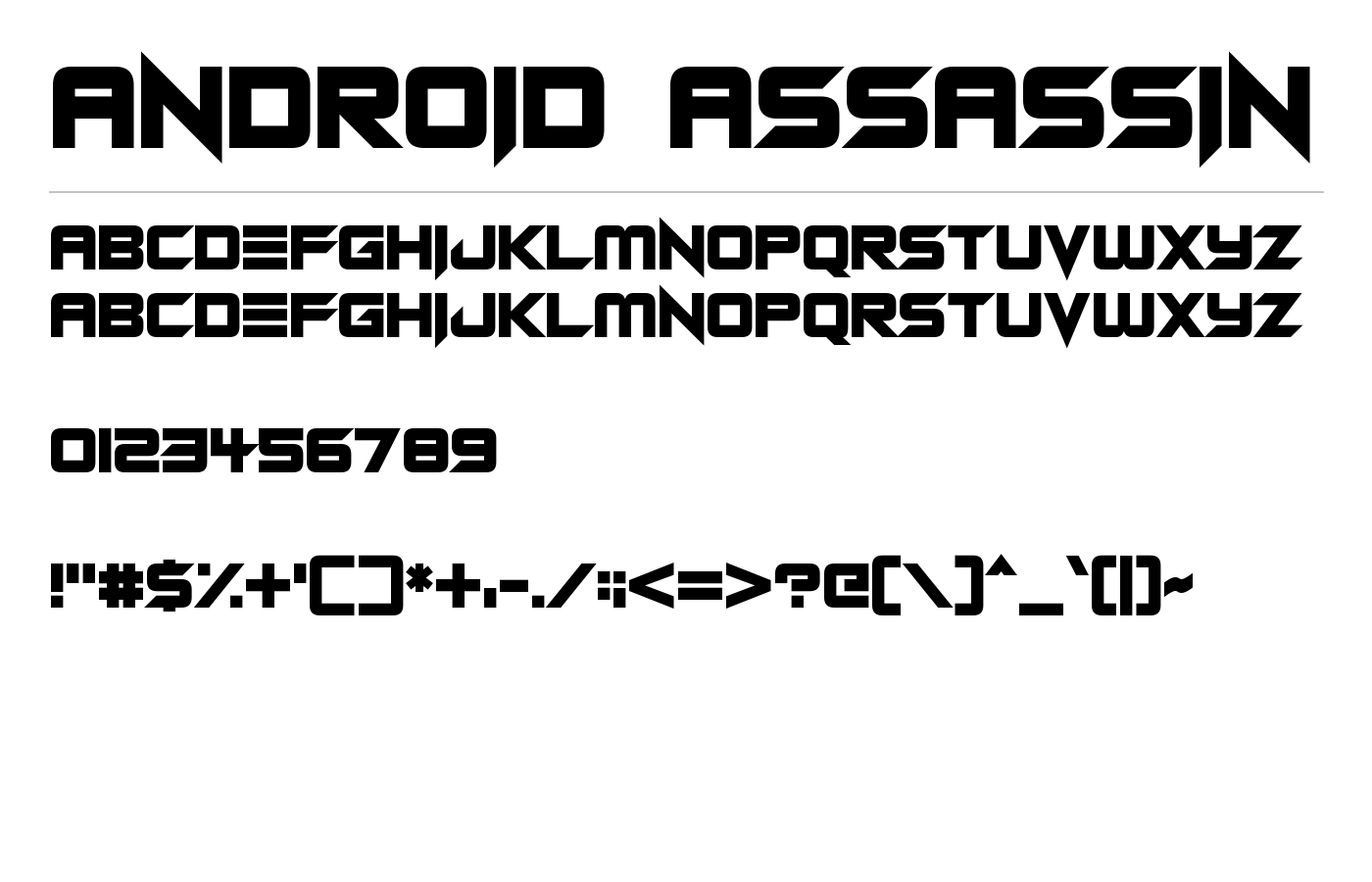
Android Assassin is a bold, geometric sans serif font with a futuristic and tech-inspired style. Its sharp angles and unique cut-out details create a dynamic, edgy look that works well for gaming, technology, or sci-fi branding and headlines. This font adds a strong, modern personality to logos, posters, and digital media where a bold impact is needed.
Android Assassin Font
About Android Assassin Font
| Font family | Android Assassin Font |
| Designer | Darrell Flood |